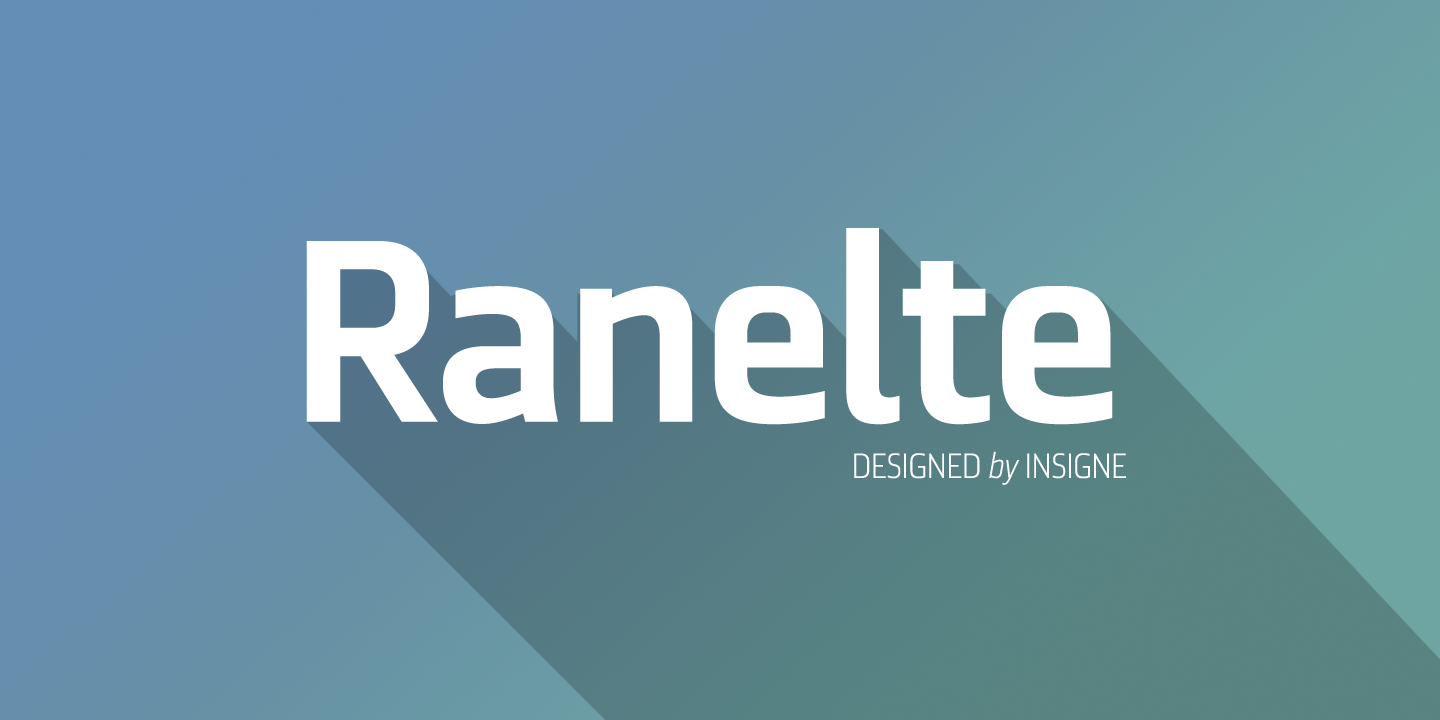
Ranelte Font is ideal for contemporary art galleries, modern design studios, innovative technology companies, progressive architectural firms, cutting-edge fashion brands, avant-garde creative agencies, forward-thinking startups, experimental music venues, contemporary cultural institutions, and sophisticated digital platforms.
What makes Ranelte Font exciting is its contemporary sophistication and innovative elegance that embodies the essence of modern design with progressive refinement and artistic flair. This distinguished typeface captures the spirit of contemporary creativity with its sleek character forms and innovation-inspired proportions that evoke clean gallery spaces showcasing cutting-edge art, minimalist studios where form follows function, and the kind of sophisticated modernism that defines today's most progressive design thinking. The font's contemporary character creates an immediate impression of innovation and the kind of artistic sophistication that resonates with culturally aware audiences.
Ranelte Font family includes regular weight with contemporarily crafted character designs featuring modern curves and progressive proportions. The typeface maintains exceptional readability while showcasing its distinctive innovative personality through elegantly designed letterforms that reflect the clean aesthetics and forward-thinking philosophy that characterizes excellent contemporary design.
Creative professionals consistently select Ranelte Font Free Download for projects requiring authentic contemporary appeal and innovative credibility. This remarkable typeface brings the elegance of modern design to brand communications, combining progressive aesthetics with sophisticated functionality to create memorable contemporary experiences. The innovatively designed characters ensure sophisticated positioning across all applications, making it essential for design agencies, cultural institutions, and any organization seeking to communicate the progressive innovation and contemporary sophistication that defines cutting-edge modern design through Ranelte Font Free Download.